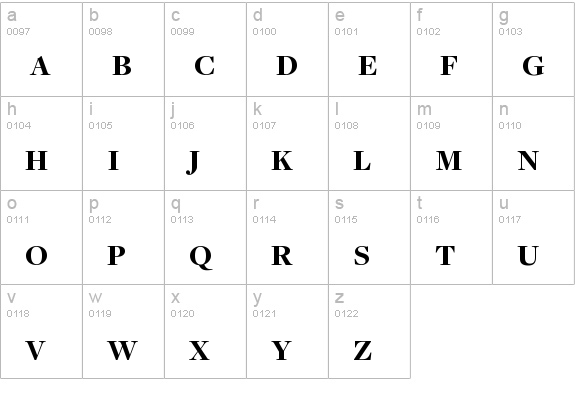
FreightDispBoldSC Font Details
FreightDispBoldSC font is a versatile and modern typeface that exudes strength and boldness, making it perfect for conveying a sense of authority and impact in your designs. Its sturdy and commanding presence makes it ideal for headlines, posters, and other display purposes. The strong, geometric shapes of the letters give this font a contemporary and professional look that is sure to make your text stand out. Best of all, FreightDispBoldSC font is available for free download at FontsMarket.com, allowing you to easily access this powerful typeface for all your design needs. So go ahead and enhance your projects with the impactful and stylish FreightDispBoldSC font today!